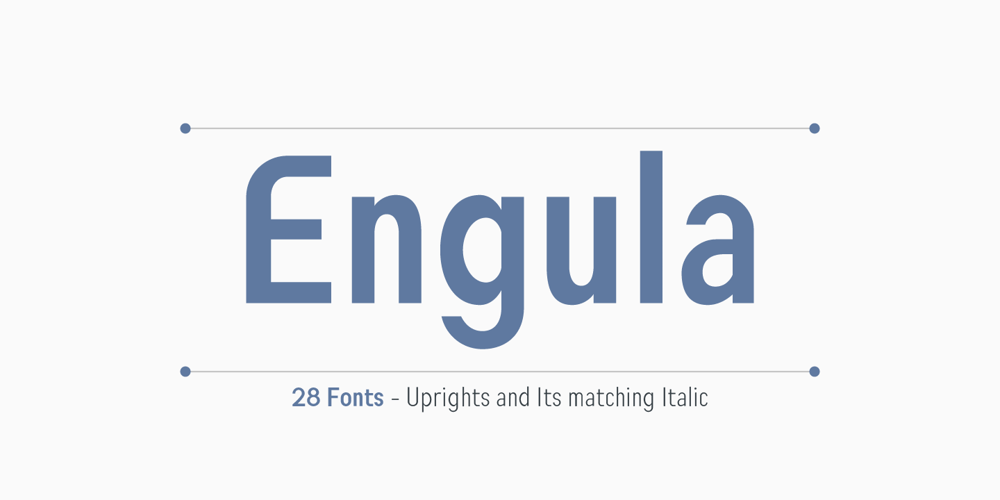
Engula Font Family was designed by Muhammad Khoirul Amal and published by CBRTEXT Studio. Engula contains 26 styles and family package options. Engula is a sans serif font family. It consists of 28 fonts. 14 upright styles and 14 matching italic styles. Engula is a nice and comfortable font for everyone to see. So that it can make your project and branding smooth. Engula supports 17 languages including Afrikaans, Albanian, Catalan, Danish, Dutch, English, etc. Engula also has several alternative letters.